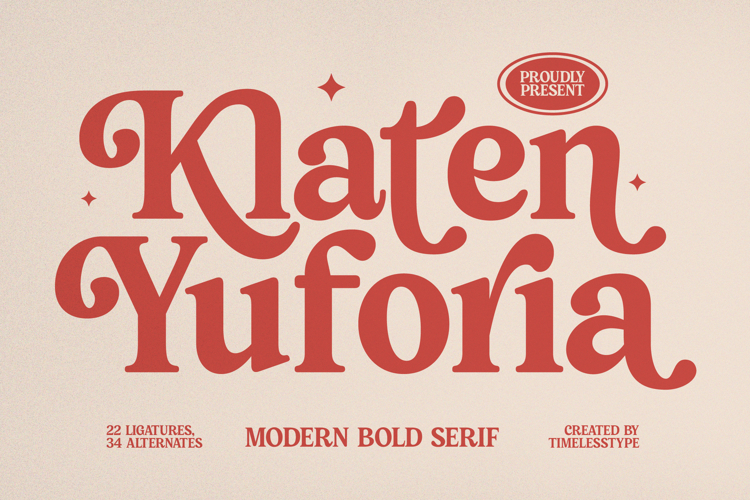
Klaten Yuforia - Modern Bold Serif Font
Discover the captivating allure of Klaten Yuforia - Modern Bold Serif Font, a typeface that effortlessly blends retro charm with a modern aesthetic. Its bold, flowing forms and gentle serifs create an inviting yet sophisticated presence, perfect for projects demanding both warmth and a strong visual identity. This font is meticulously crafted to deliver an immediate sense of elegance and approachability, making it instantly memorable.
Unlock unparalleled typographic flexibility with Klaten Yuforia - Modern Bold Serif Font, featuring an impressive array of 22 ligatures and 34 alternates. These meticulously crafted variations provide designers with immense power to forge truly unique compositions, ensuring every headline and display text stands out with exceptional character and a tailored feel for maximum creative expression and dynamic visual impact.